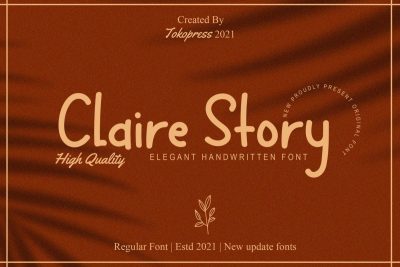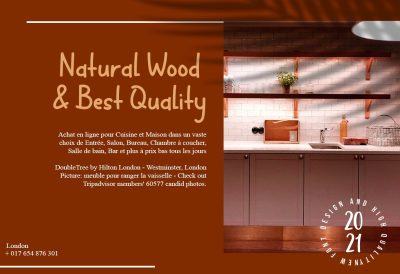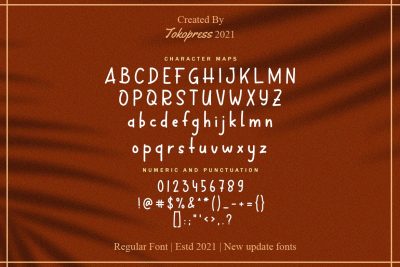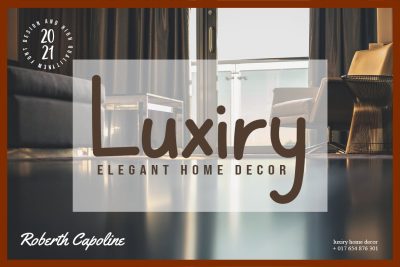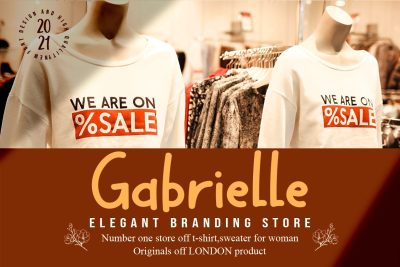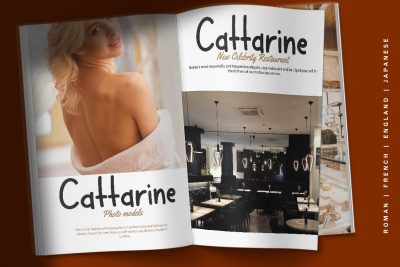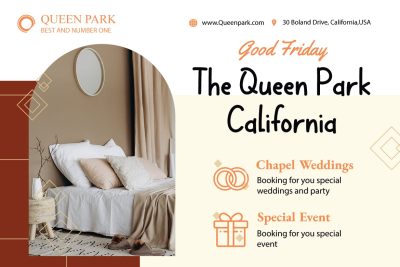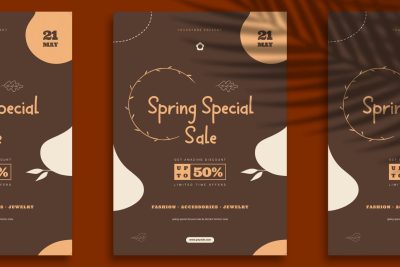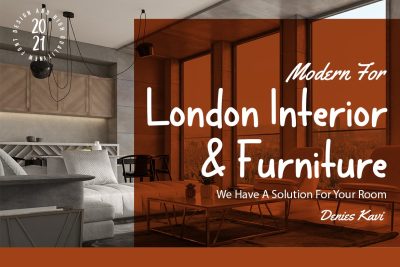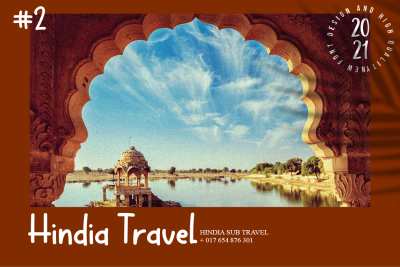
Handwriting font Claire Story is an elegant, high-quality typeface that adds a feminine touch to any design. With smooth, rounded strokes and a graceful flow, this font captures the essence of a handwritten note in a refined style. Its clean and delicate appearance brings warmth and intimacy, making it perfect for designs that feel personal and classy. Claire Story strikes a balance between simplicity and elegance, making it stylish yet easy to read.
Additionally, handwriting font Claire Story is versatile and works beautifully in both digital and print media. It shines on invitations, branding materials, social media graphics, and personal stationery. The gentle curves and natural flow make it ideal for romantic themes, lifestyle branding, or any design that needs an elegant handwritten feel. Whether used for logos, product labels, or quotes, Claire Story adds warmth and sophistication to your work.
Handwriting Font Claire Story Ideal Users
Claire Story is perfect for wedding planners, lifestyle brands, and designers focused on feminine themes. For example, wedding planners and stationery designers can use this font to create stunning invitations, menus, and seating cards. Its romantic look complements wedding decor, setting a graceful and inviting tone. Claire Story is also suitable for bridal showers, baby showers, and other events that need an elegant touch.
Lifestyle brands, especially in fashion, beauty, and wellness, can benefit greatly from Claire Story. The fontโs sophisticated appearance makes it ideal for logos, packaging, and social media posts. Its handwritten style conveys authenticity, helping brands connect with their audience. Beauty brands, for instance, can use Claire Story on labels to create a chic, luxurious feel.
Moreover, social media influencers and bloggers in fashion, wellness, or lifestyle can enhance their branding with Claire Story. This font is perfect for quote graphics, blog headers, and banners that need a soft, feminine touch. The fontโs elegant design creates a polished look, making content visually appealing and professional. Overall, handwriting font Claire Story is an excellent choice for adding elegance, warmth, and personality to designs, leaving a lasting impression on viewers.